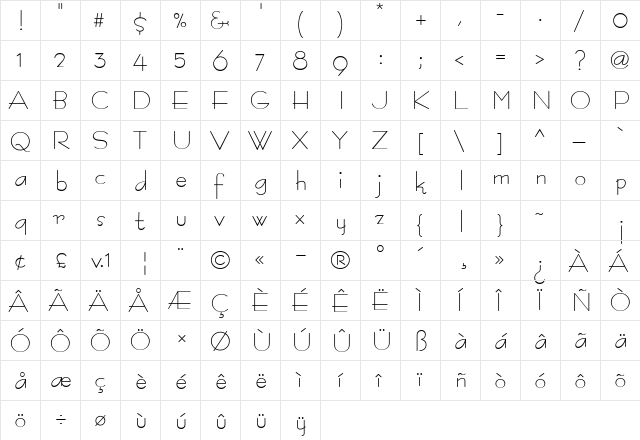
BernhardFashionHmk Regular
Design Context for BernhardFashionHmk Typeface
BernhardFashionHmk offers clean, dependable letterforms without strong stylistic allegiance, making it a practical choice for designers who need flexibility.
Pro Tip: Use BernhardFashionHmk in both headline and body roles to test its range before committing to a single application.